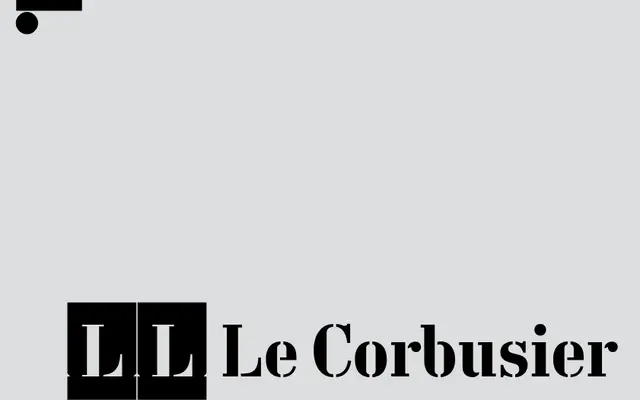
LL Le Corbusier
Lineto · Chiachi Chao · 2024
A family of four stencil fonts redrawn from antique zinc lettering stencils, associated with the architectural drawings of Le Corbusier and widely used across 20th-century Europe.
Originally digitised in the 1990s and early 2000s, the family was fully redrawn by Chiachi Chao and re-released in spring 2024 across three styles: a standard stencil, the Oldface cut associated with Le Corbusier's own architectural plans, and a Cameo version based on the physical silhouette of the original zinc stencils. Each style is manually kerned with an expanded glyph set, balancing refinement against the rugged irregularity of the source material. The result sits well in editorial, architectural and typographic work that calls for a stencil with genuine historical grounding.
Derived from antique zinc lettering stencils common in European hardware and art supply shops throughout the 20th century, the family belongs firmly in the display category as a stencil type. The rugged, interrupted letterforms are characteristic of the stencil display tradition.